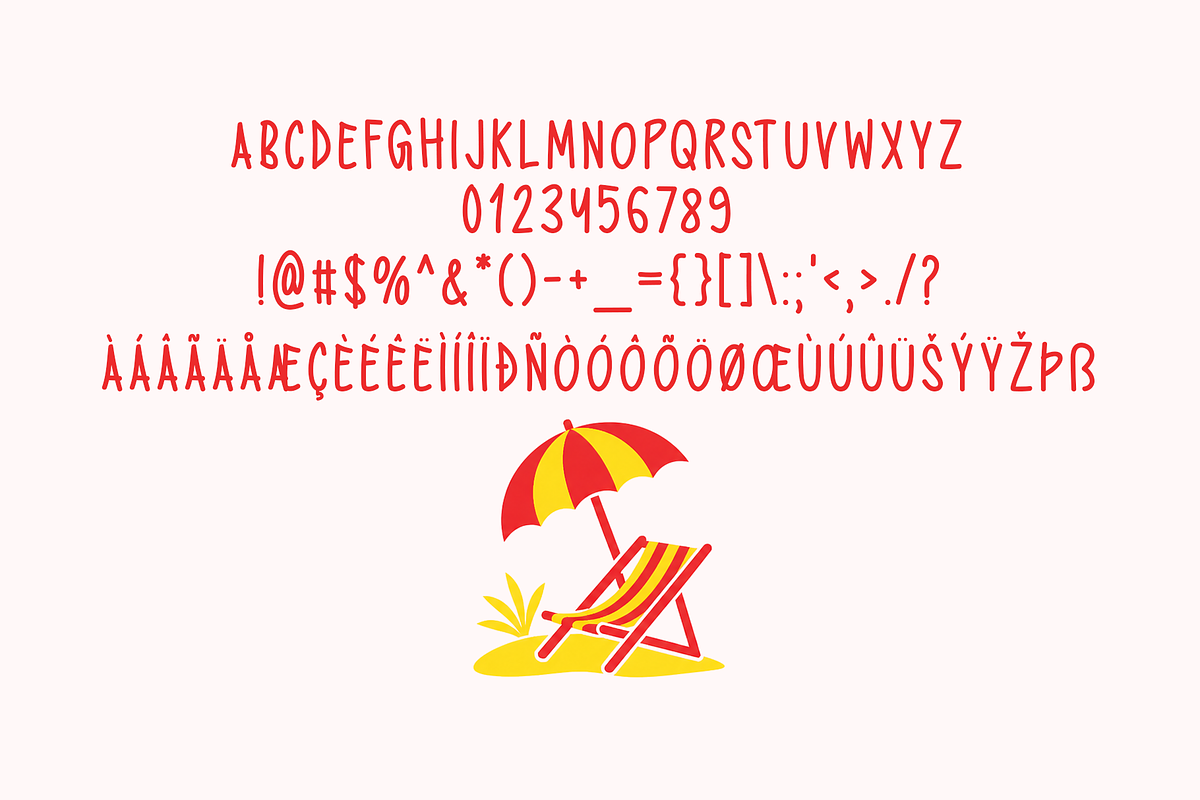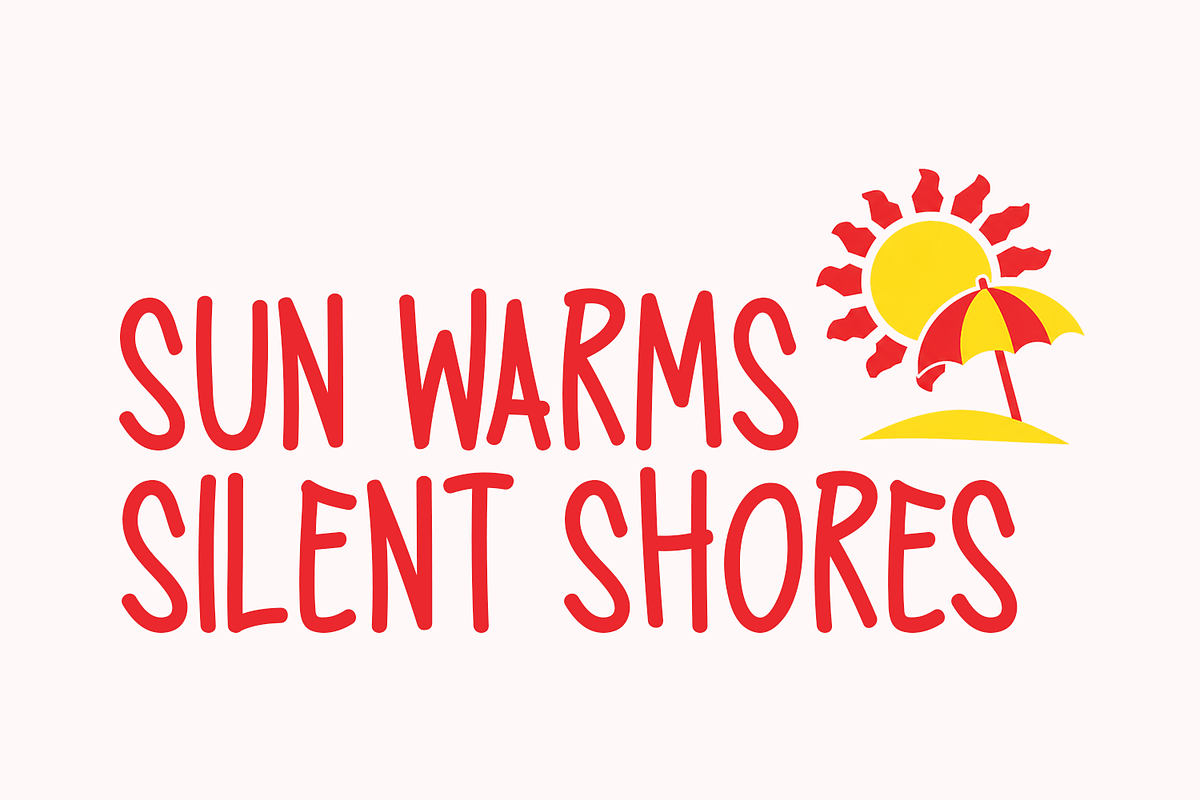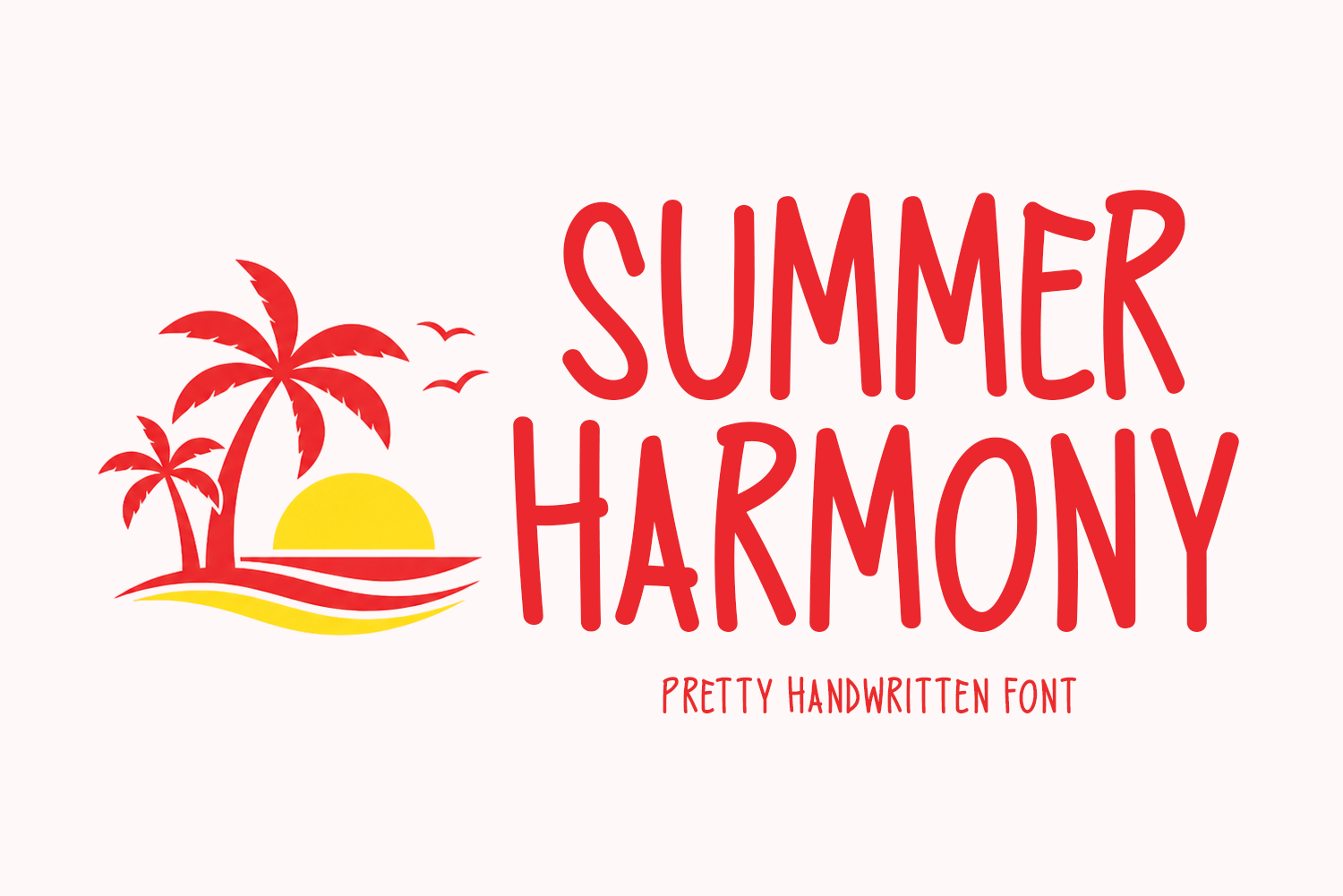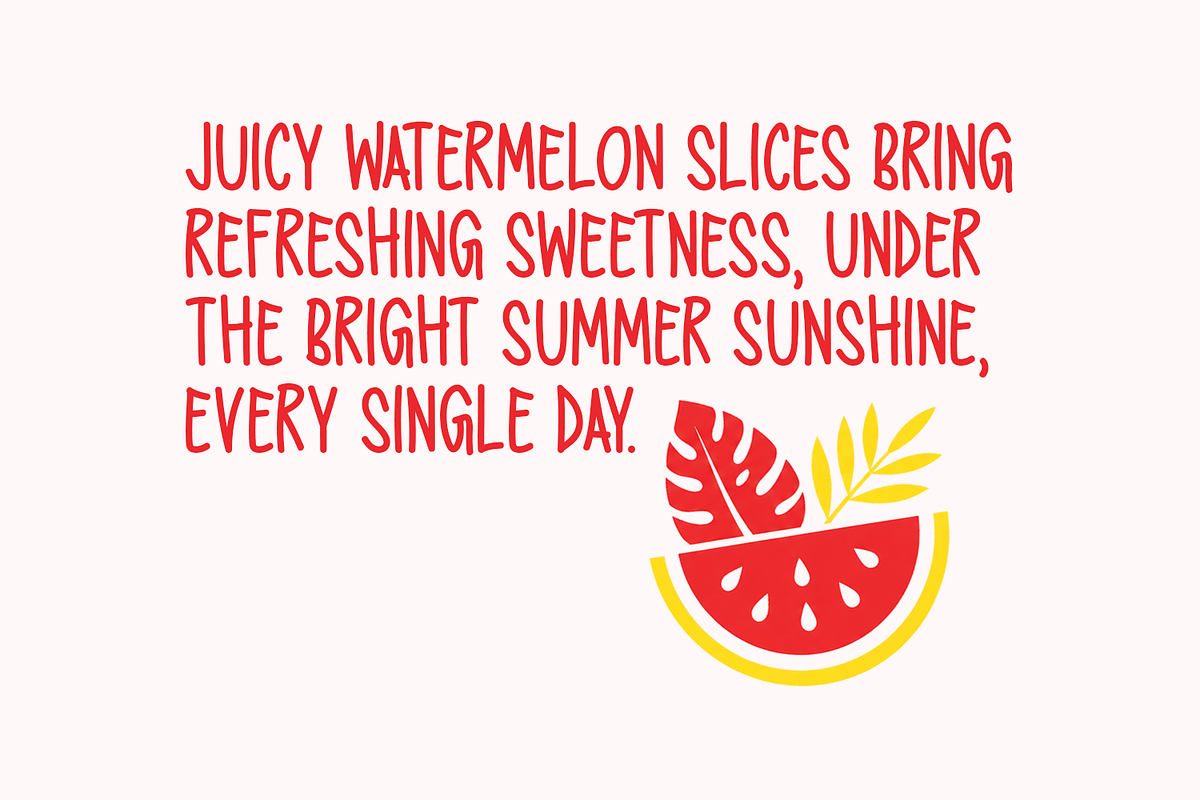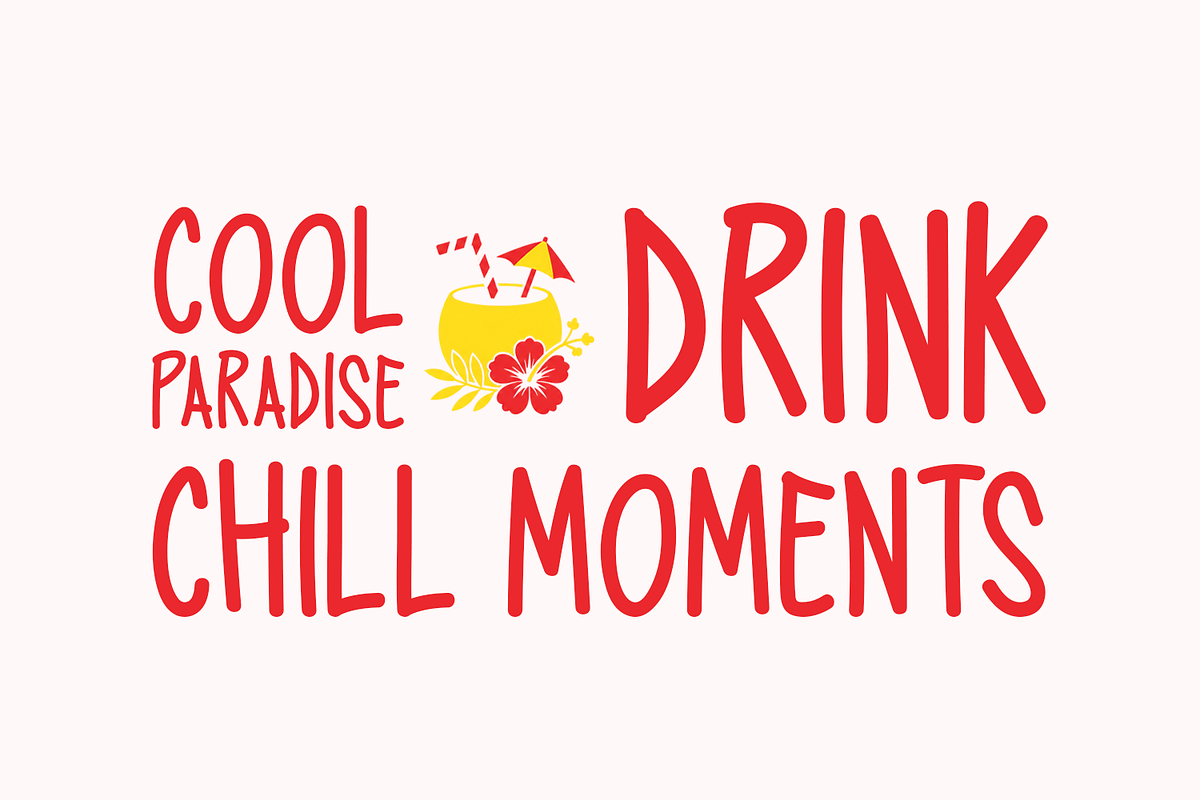
Summer Harmony Typeface
Introducing Summer Harmony!
Summer Harmony is a warm and lively handwritten font inspired by the simple joys of summer days. From juicy fruits and cool drinks to golden sunsets and relaxing beach moments, it captures a feeling of calm, happiness, and natural flow. Its smooth curves and playful strokes make it perfect for branding, packaging, social media, posters, t-shirts, and seasonal designs. Summer Harmony gives a new, sunny vibe that seems effortless and full of life, whether you're making something big or delicate.
Includes a range of multilingual support